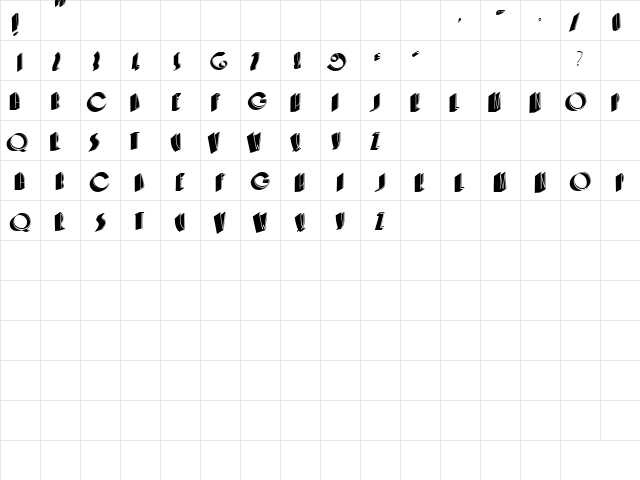
CafeNoirShadow Regular Free Font
CafeNoirShadow Regular
Design Context for CafeNoirShadow
CafeNoirShadow is built around its visual character rather than neutral utility - its distinctive forms are designed to make an impression at display sizes.
Font Pairing: Pair with a clean neutral sans-serif for body copy to let CafeNoirShadow's character lead without overwhelming the composition.
Pro Tip: Use CafeNoirShadow exclusively at display sizes - it was designed to be seen, not read at length. Let a neutral companion handle body copy.